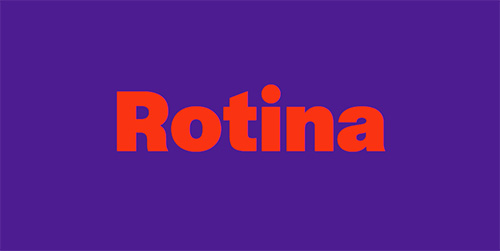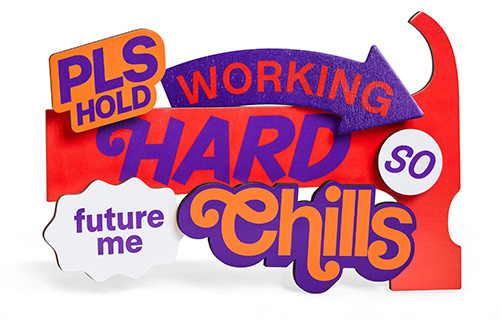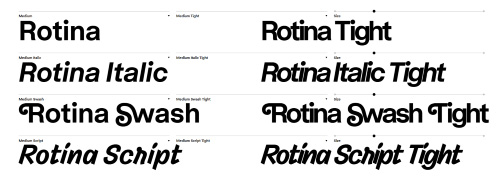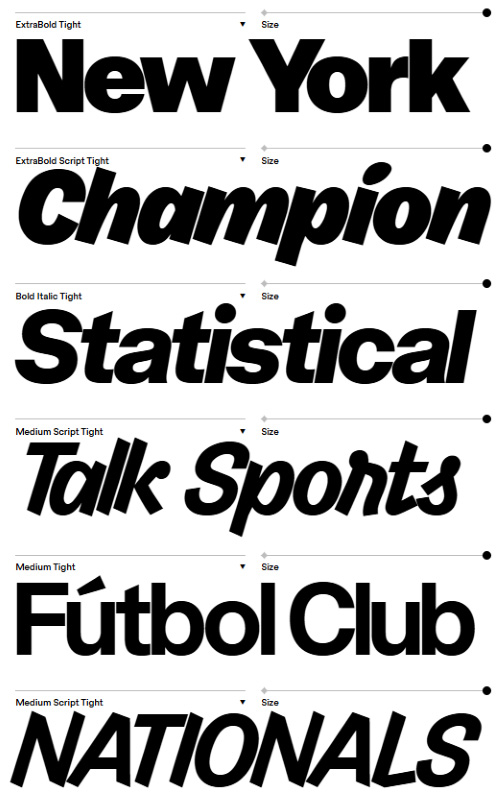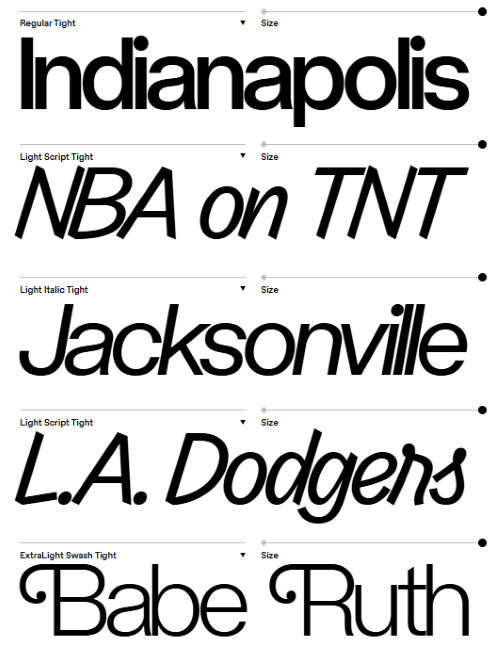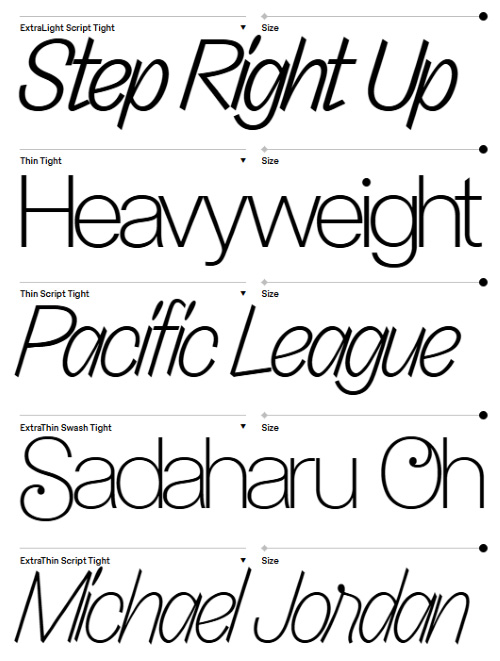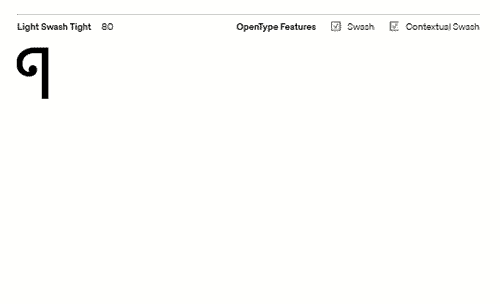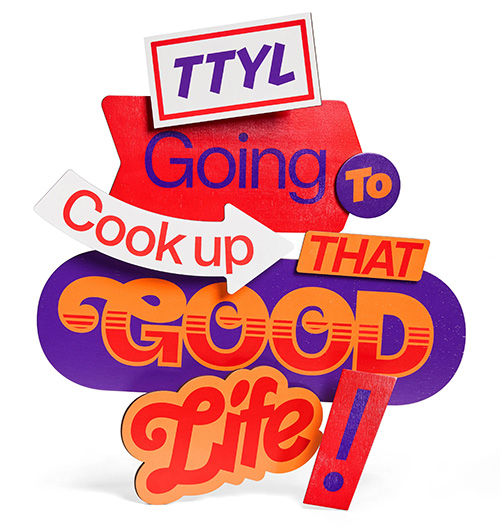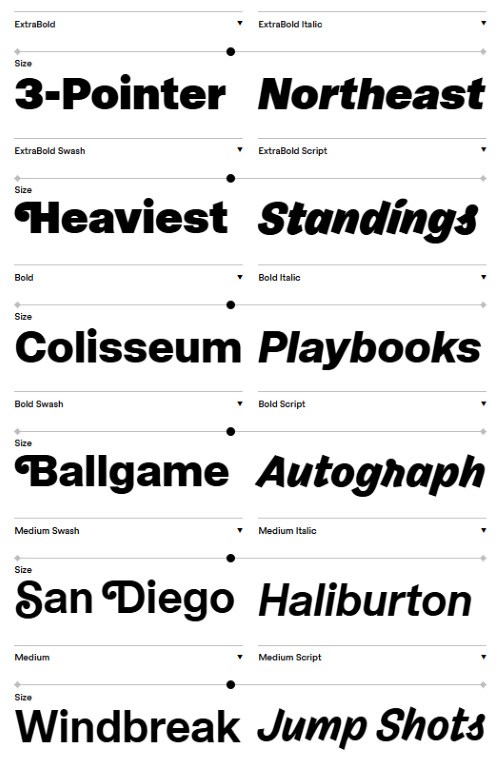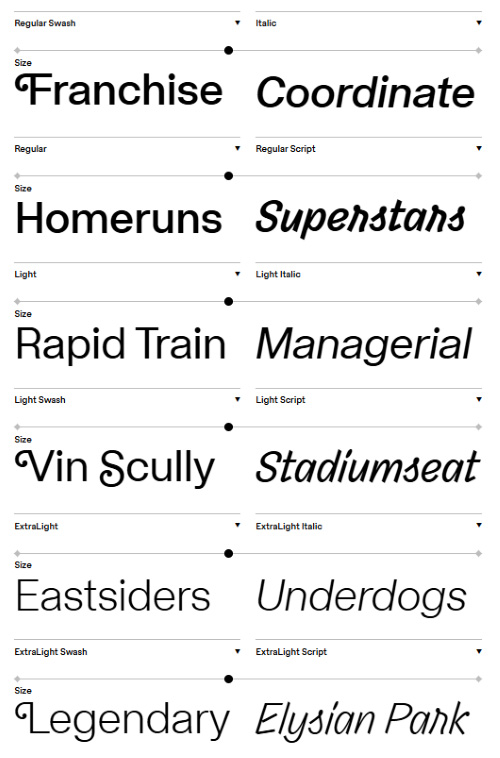
Variable Rotina NEW!
with Variable Swash & Script Styles
- Rotina is a sturdy modernist sans with a playful secret. Built on the solid foundation of a novel and clean utilitarian neo-grotesque, Rotina is an aesthetically cohesive Swiss army knife of tools that brings workhorse fundamentals, robust utility, and a heavy dose of aura to your daily design routine.
- Every letter in Rotina carries a quiet tension: part modernist engineering, part human gesture. The Roman and Italic styles provide a clean, functional base for branding, editorial, and digital applications. But with a single click, the extensive OpenType features and complimentary styles deliver instant personality. This duality is Rotina’s greatest asset and its conceptual engine. It’s a type system that can shift from a swiss poster to a handwritten note without losing its composure, designed for both clarity and charm. What begins as a study in restraint becomes a lesson in freedom–a workhorse with a wink. Rotina is built for the everyday, but always ready to break the routine.